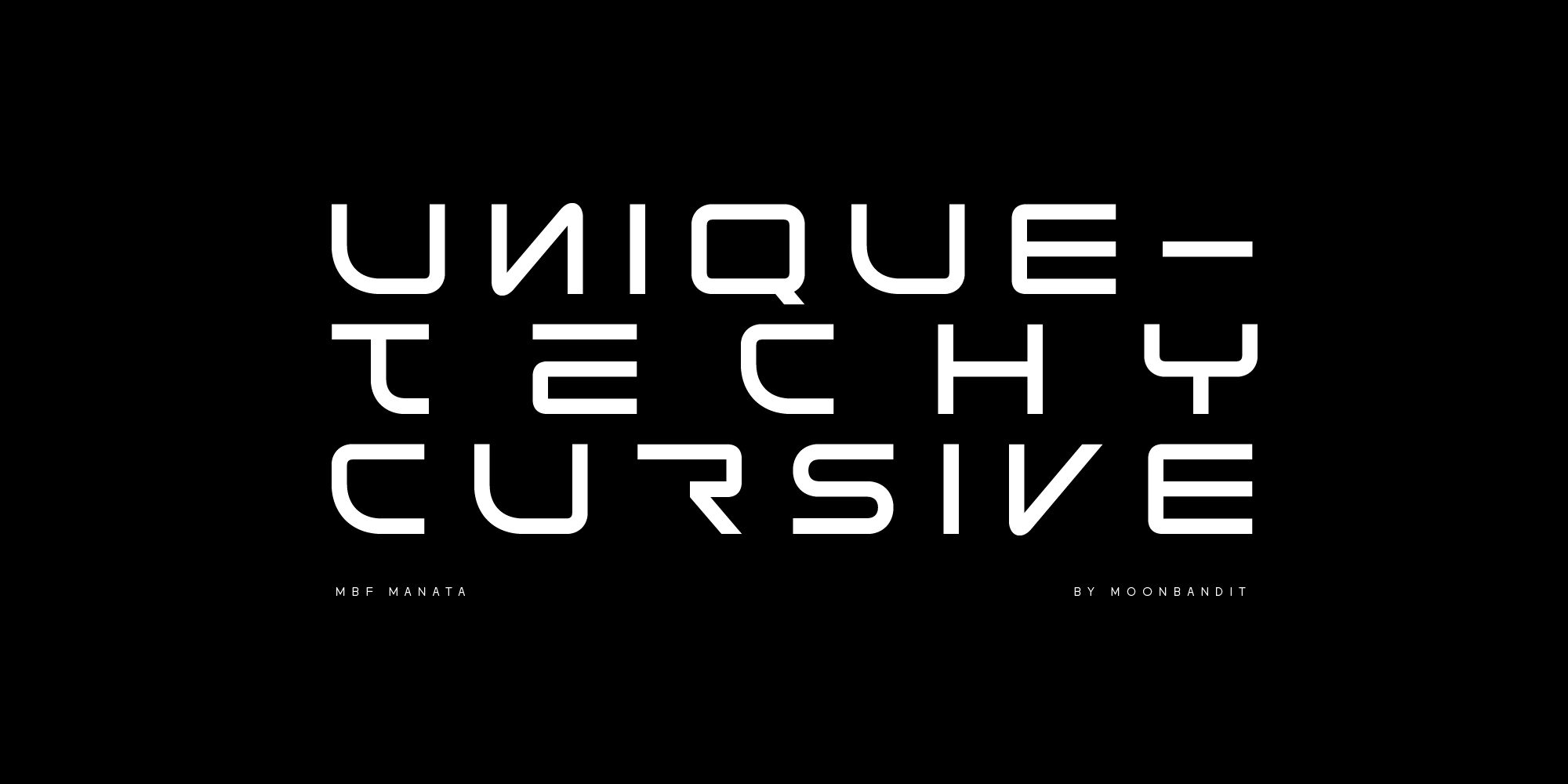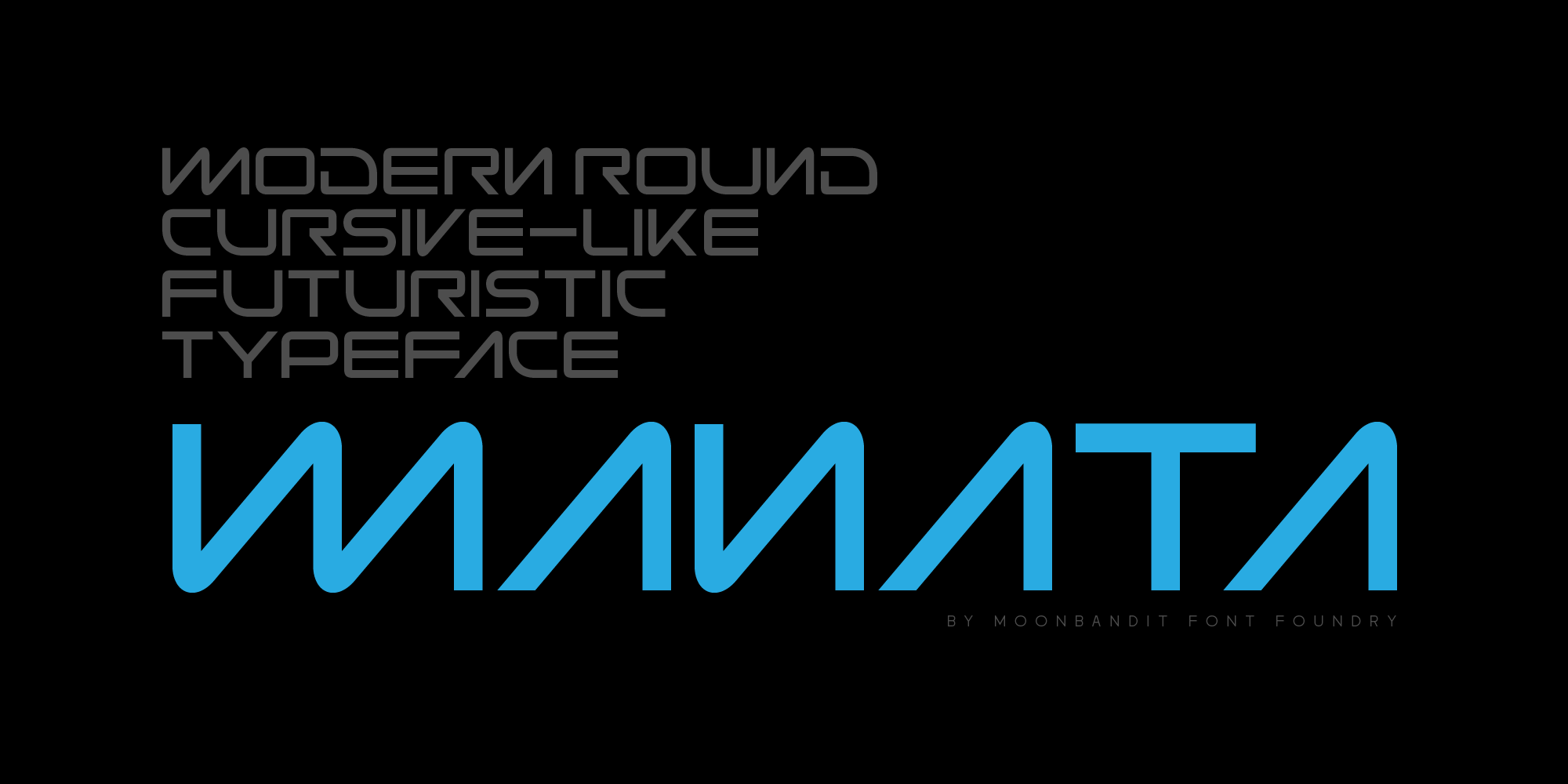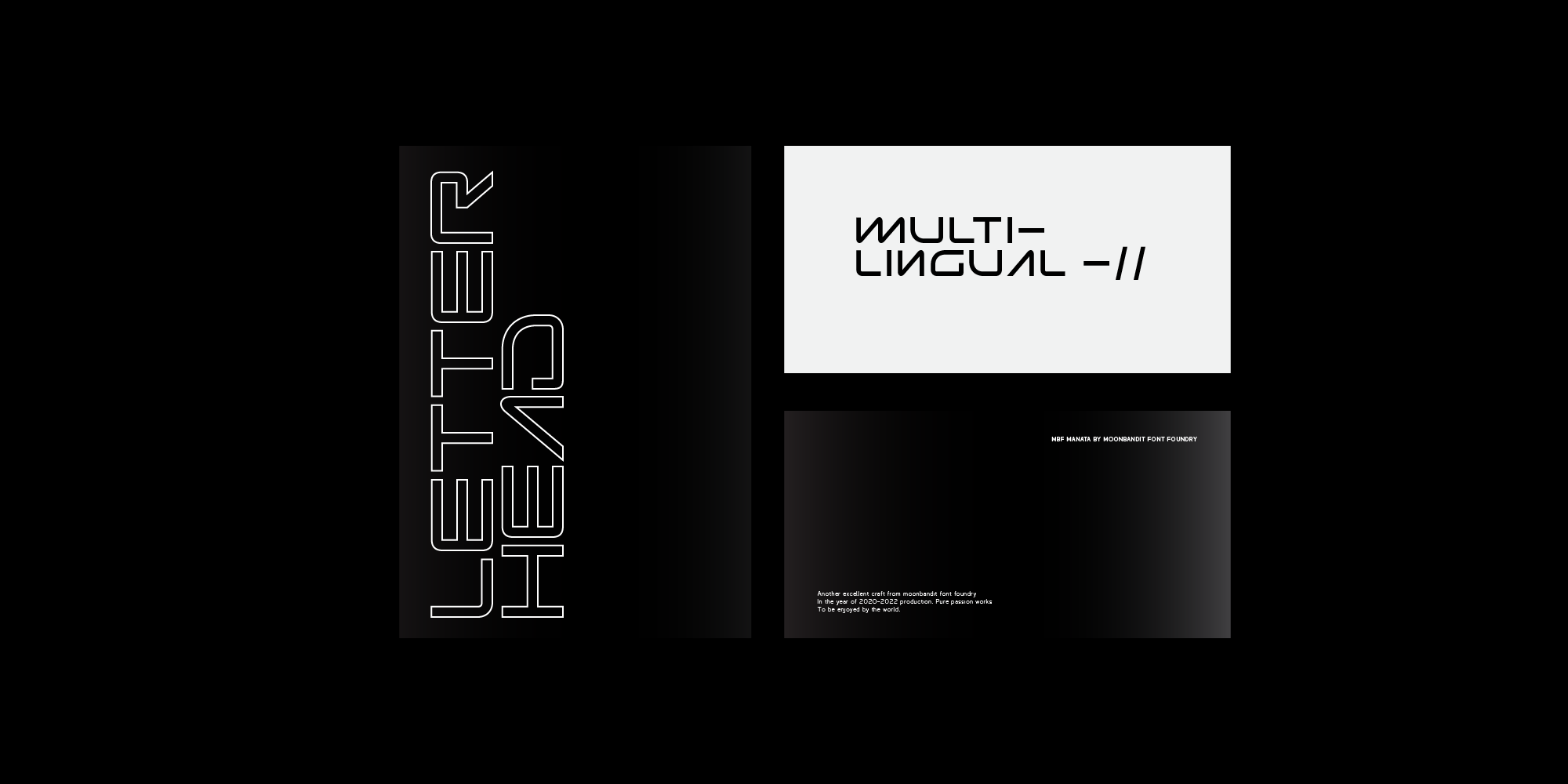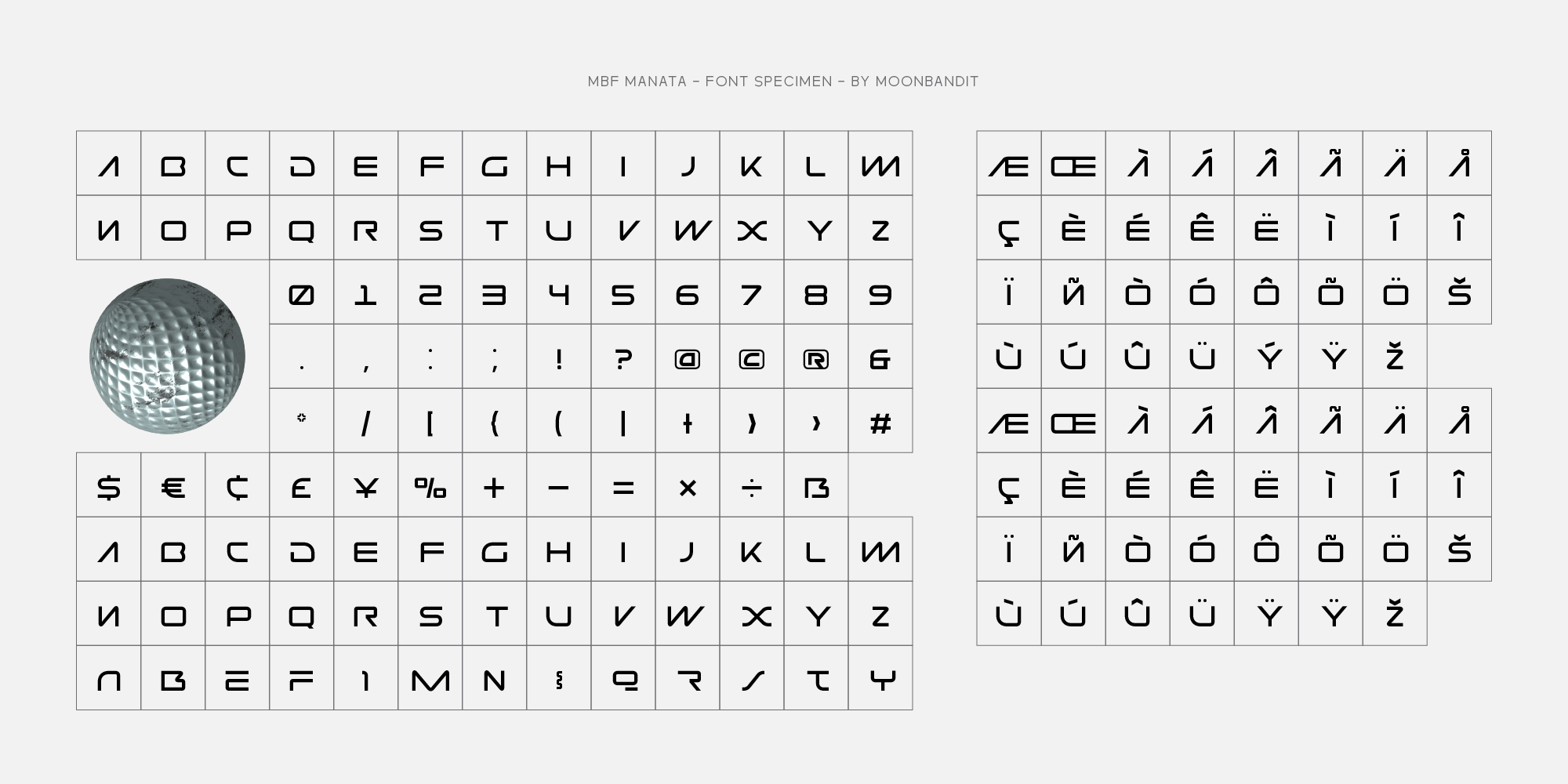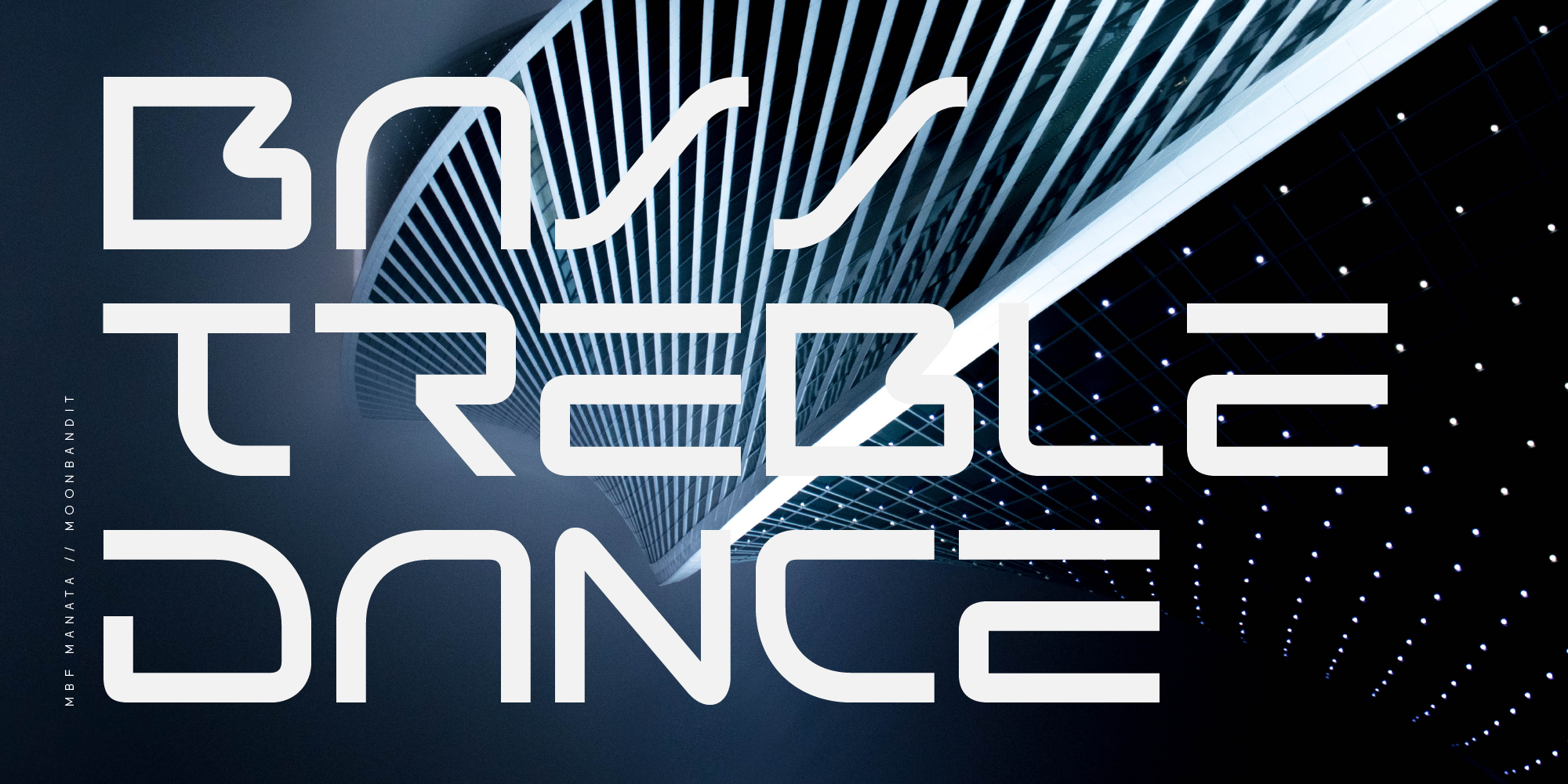
MBF Manata
Manata is a modern futuristic semi-cursive font. This typeface has a unique angle spreading through each glyphs to enhance dynamic and flow. Combined with straight and sharp stem to balance the overall feel and readibility. Perfect usage for large size display, title, poster, logotype and body text. Manata also support multilingual and have several alternate glyphs.